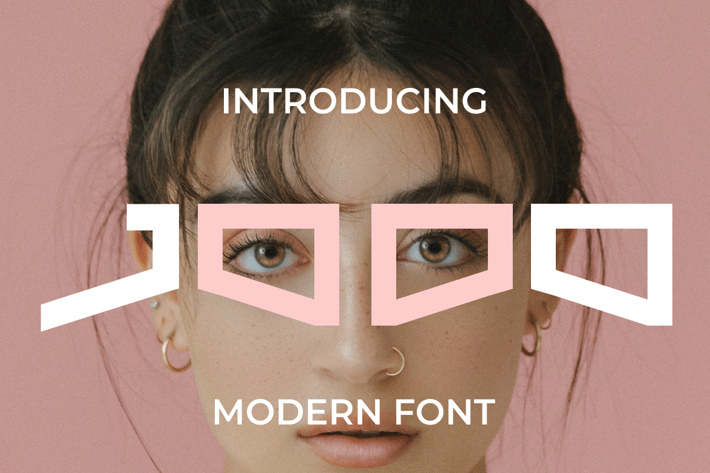
Jdod Font
Introducing our new product Jdod Font - Modern Font
Jdod Font - Modern Font is a bold and authentic display font. The font is suitable for any branding project like logo, t-shirt printing, esport, and many more. outstanding in a wide range of contexts.